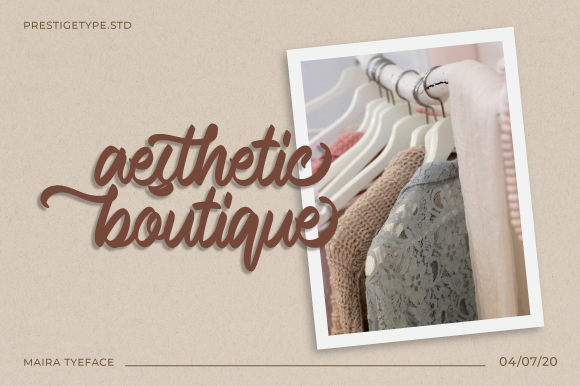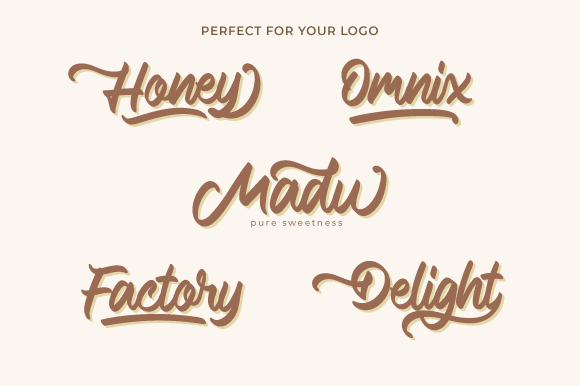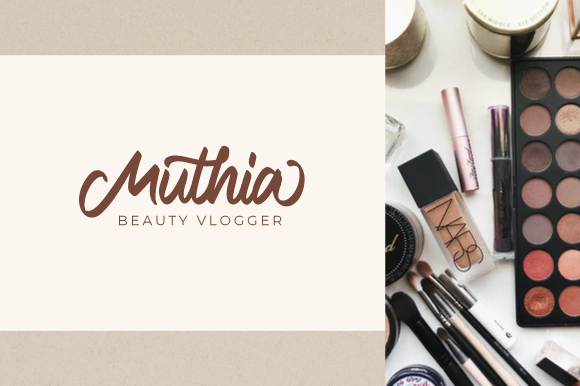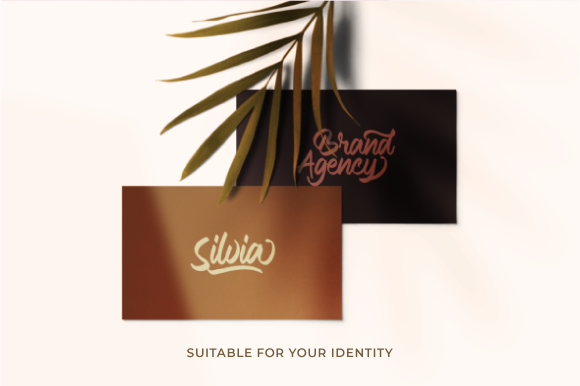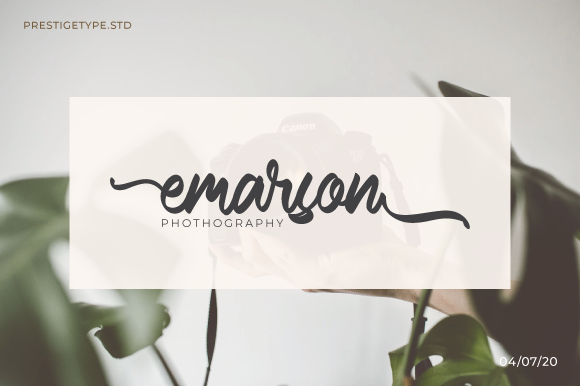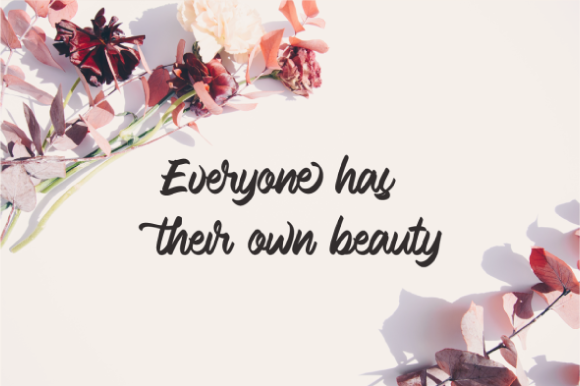
Introduction to Maira Font
Maira is a beautiful and versatile script font.
This stunning font is a stylish homage to classic calligraphy Fall in love with its authentic feel and use it to create gorgeous wedding invitations, beautiful stationary art, eye-catching social media posts, and cute greeting cards.
Maira Font offers exceptional quality and versatility, making it a valuable addition to your design toolkit. Whether you’re creating for personal projects or commercial use, Maira Font delivers professional results.